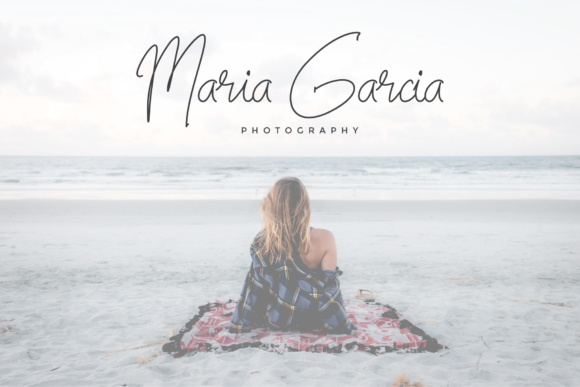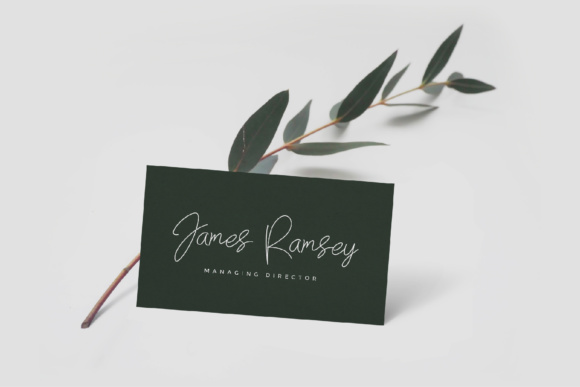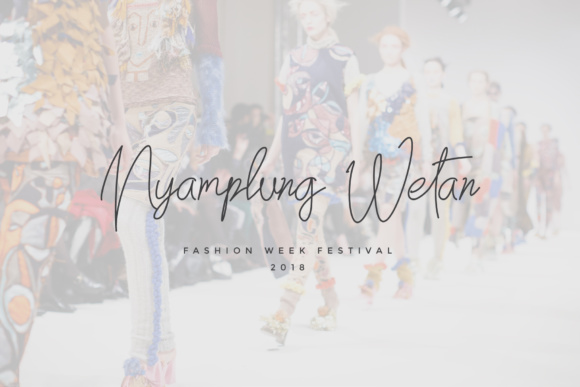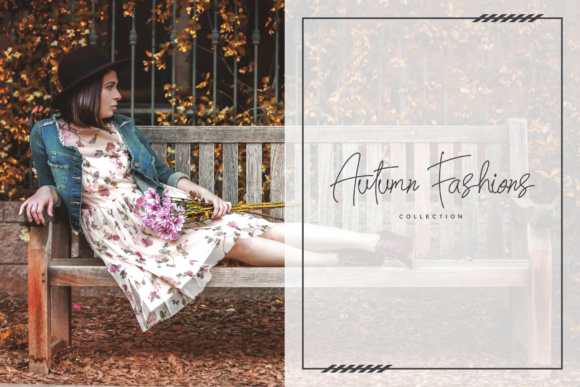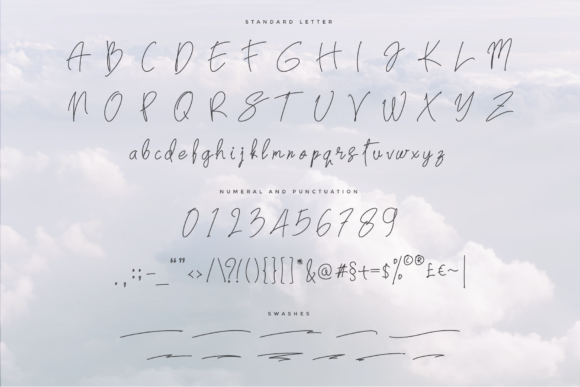
Brecelets Font: Elevate Your Typography with a Beautiful Signature Script Font
Are you a designer or crafter looking to add a touch of elegance and sophistication to your projects? Look no further than the Brecelets font, a stunning signature script font that allows you to create beautiful, handmade typography in an instant. In this article, we’ll dive into the world of Brecelets font, exploring its features, benefits, and uses, as well as provide tips and inspiration for incorporating it into your work.
What is Brecelets Font?
The Brecelets font is a beautiful signature script font designed to help you create stunning, handmade-looking typography with ease. Its elegant and flowing script style makes it perfect for a variety of projects, from wedding invitations and stationery to branding and packaging. With Brecelets, you can add a personal touch to your work, making it stand out from the crowd.
Key Features of Brecelets Font
- Beautiful Script Style: Brecelets boasts a gorgeous signature script style, complete with flowing connections and elegant letterforms.
- Handmade Look: The font’s unique texture and imperfections give it a handmade look that’s perfect for creating authentic, artisanal designs.
- Ease of Use: Brecelets is incredibly easy to use, allowing you to create stunning typography in just a few clicks.
- Versatility: The font is suitable for a wide range of projects, from digital designs to print materials.
Benefits of Using Brecelets Font
So, why choose Brecelets font for your projects? Here are just a few benefits of using this stunning script font:
- Time-Saving: With Brecelets, you can create beautiful typography in a fraction of the time it would take to hand-write or illustrate each letter.
- Consistency: The font ensures consistency across your designs, making it perfect for branding and identity projects.
- Customization: Brecelets can be easily customized to fit your project’s unique needs, from adjusting letter spacing to adding your own textures and effects.
- Unique Look: The font’s handmade look and feel ensure that your designs will stand out from the crowd.
Using Brecelets Font: Tips and Inspiration
Now that we’ve covered the features and benefits of Brecelets font, let’s dive into some tips and inspiration for incorporating it into your work:
- Wedding Invitations: Use Brecelets to create stunning wedding invitations, complete with elegant script and beautiful texture.
- Branding and Packaging: Add a touch of sophistication to your branding and packaging with Brecelets’ elegant script style.
- Stationery and Paper Goods: Create beautiful stationery and paper goods, from greeting cards to journals, with Brecelets’ handmade look and feel.
- Digital Designs: Use Brecelets to add a touch of elegance to your digital designs, from social media graphics to website headers.
| Font Name | Brecelets Font |
| Author | MuSan |
In conclusion, Brecelets font is a stunning signature script font that’s perfect for designers and crafters looking to add a touch of elegance and sophistication to their projects. With its beautiful script style, handmade look, and ease of use, Brecelets is an excellent choice for a wide range of projects, from wedding invitations and stationery to branding and packaging. Whether you’re a seasoned designer or just starting out, Brecelets is sure to become a go-to font in your collection.